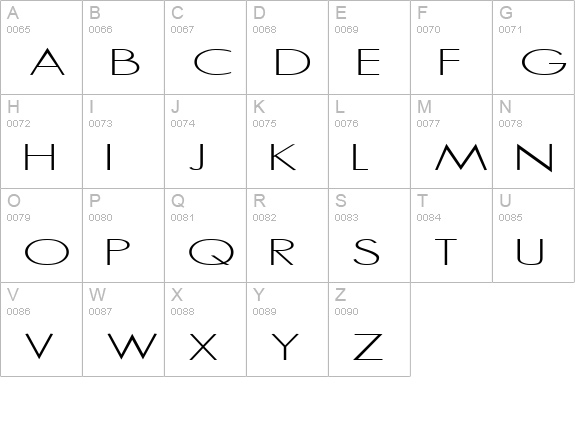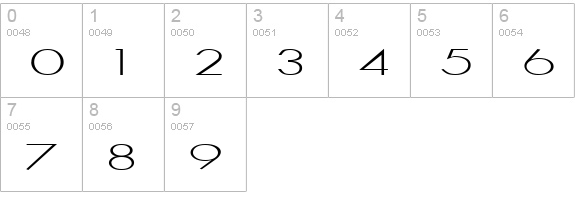
Micro Regular Font Details
Micro Regular is the standard, neutral variant in the Micro typeface family \xE2\x80\x94 well suited to general body text, paragraphs, and standard typographic work.
Micro Regular is a sleek and modern font that is perfect for a wide range of design projects. With its clean lines and minimalistic appearance, this font exudes a sense of simplicity and sophistication. Its compact size and sharp edges make it ideal for use in small spaces or as a subtle accent in larger compositions. What sets Micro Regular apart is its versatility - it can be used for anything from web design to branding to print materials. Whether you're creating a sleek logo or designing a minimalist website, this font is sure to make a statement. Best of all, Micro Regular is available for free download at FontsMarket.com. So go ahead and give your projects a touch of modern elegance with this stylish and versatile font.